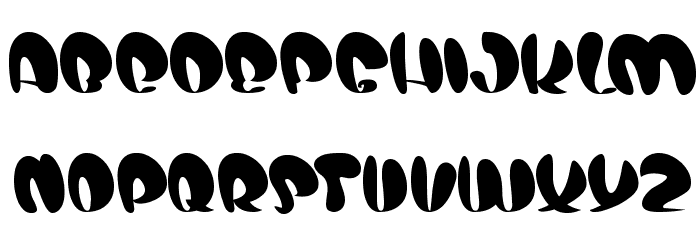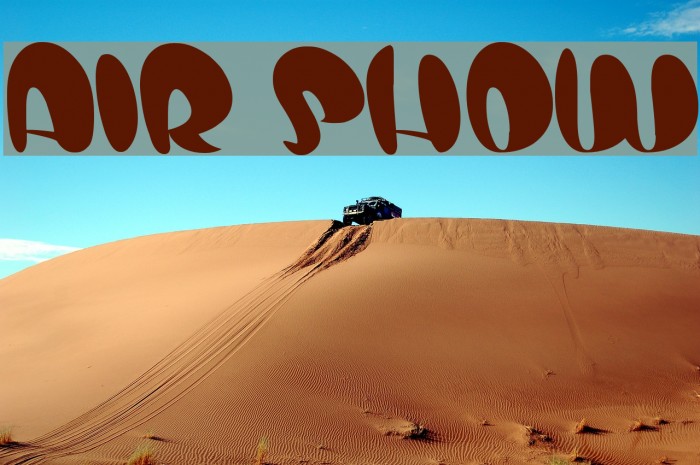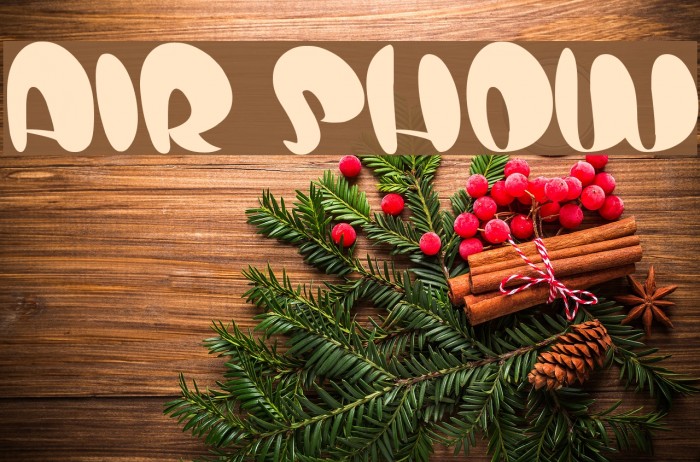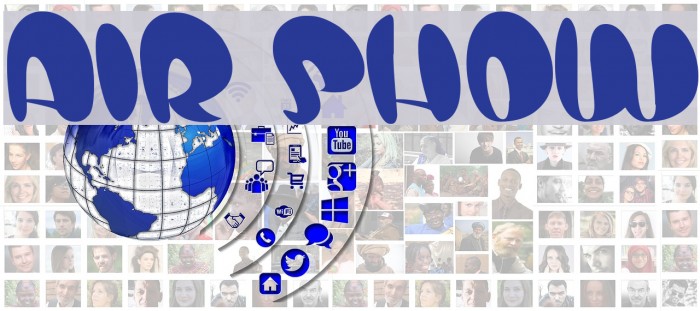
air show Font
This font features a bold, playful design with a unique, rounded style. The characters are heavily stylized with exaggerated curves and a bubbly appearance, making it stand out with a whimsical and fun vibe. The strokes are thick and consistent, providing a strong visual impact. The overall look is reminiscent of retro or vintage styles, yet it maintains a modern twist with its smooth, flowing lines. The font's distinctive character shapes make it ideal for creative and eye-catching designs.
A bold, playful font with rounded, bubbly characters and a whimsical style.
- Proposed Projects: Ideal for children's book covers, playful branding, party invitations, and retro-themed posters.
- Overall Style: Playful, Retro, Modern